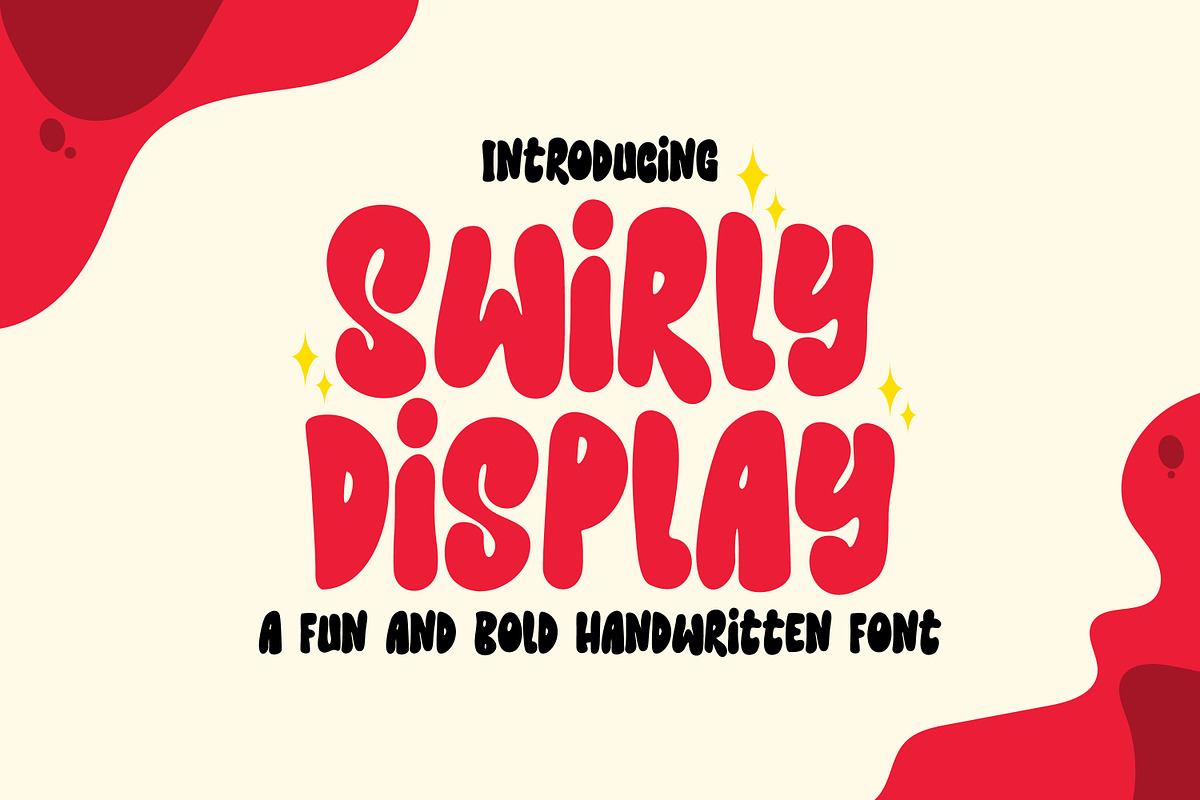
Swirly - Display Font Free Download
Swirly - Display Font Free Download is a playful and artistic typeface full of character and charm. With its decorative swirls and bold curves, this font is perfect for creative headlines, whimsical branding, invitations, packaging, and eye-catching social media graphics that need a fun, standout look.
Swirly - Display Font Free Download adds flair and movement to your typography, making it ideal for designers who want to inject personality into their work. Whether you're working on a kids' product, boutique brand, or event promotion, Swirly brings a joyful and creative energy to your design. Download it now and let your words dance with this lively display font!